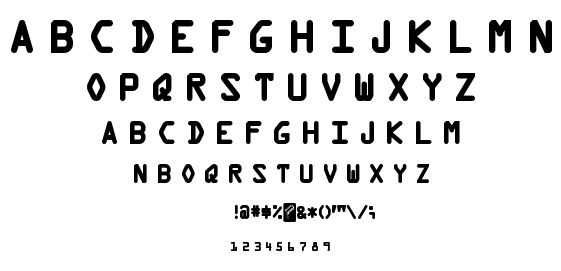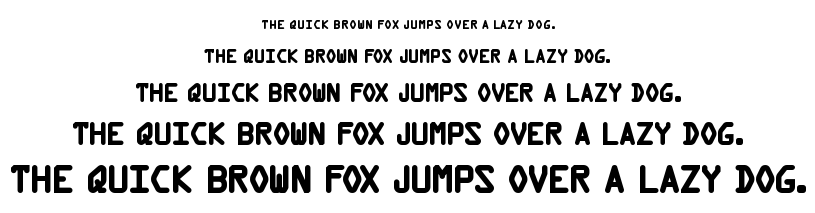
Kredit is an OCR-A imbued credit card font. Use the transparent regular style or stack the back, front & shine layers. Don’t forget to read the files inside the zip for details.